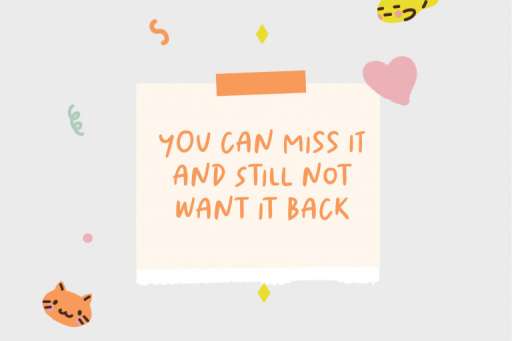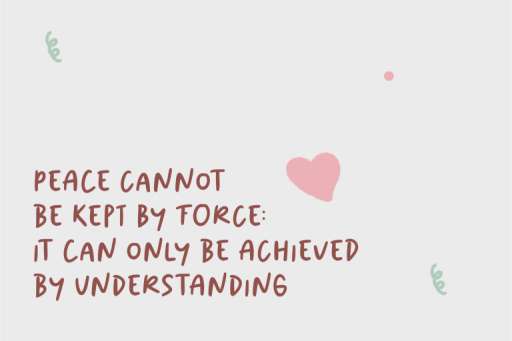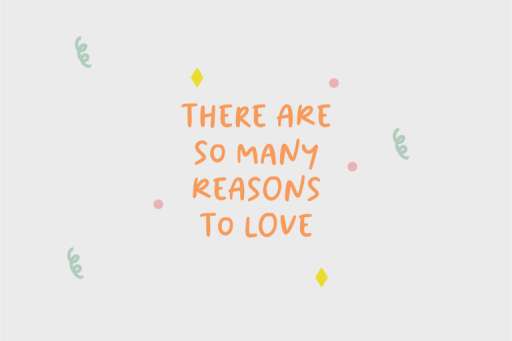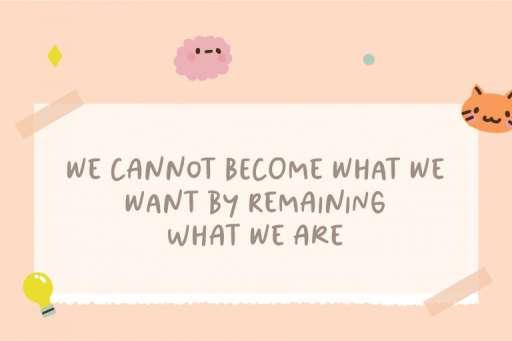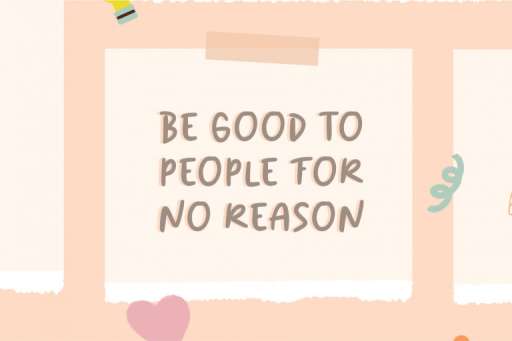
Eskiko Market – Marker Handwritten Font from Jimtype Studio
Eskiko Market Font is a handwritten font that includes an uppercase, lowercase, number, and punctuation to create the cutest designs. This font is perfect for making beautiful quotes or posts for Pinterest or Instagram and decorating them with cute graphics.
Features :
- Basic Latin A-Z and a-z
- Numbers and punctuation
- Multilingual Support